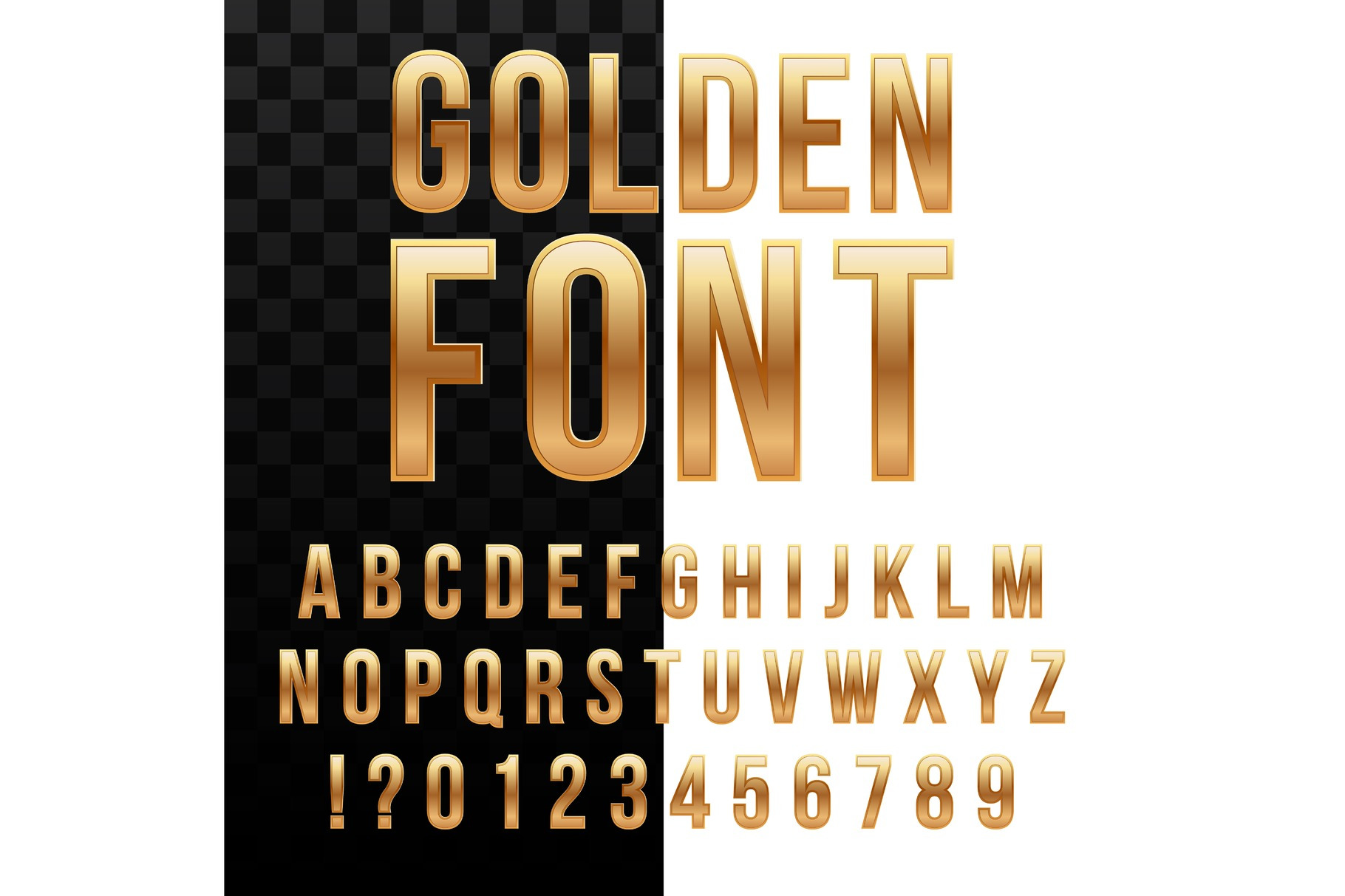
Golden glossy font, gold alphabet.
Creative vector illustration of golden glossy font, gold alphabet, metal typeface isolated on transparent background. Art design luxury metallic typographic abc. Abstract concept graphic element